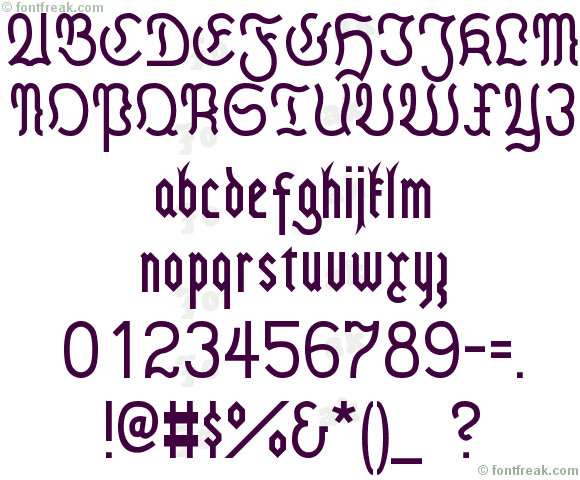
Fraktur Modern
Fraktur Modern by Matthew Welch is a captivating display font that falls under the fraktur category, showcasing a unique blend of traditional Gothic elements and contemporary design. This serif typeface features strikingly intricate letterforms characterized by sharp angles, high contrast, and varying stroke weights, making it visually compelling. The decorative elements, including ornate serifs and distinctive curves, add a sense of elegance and sophistication. The spacing between letters is thoughtfully designed, ensuring readability while maintaining its artistic flair.
This font is an excellent choice for various use cases, particularly in creative fields. It shines in wedding invitations, where its decorative style can enhance the romantic and festive atmosphere. Movie posters can benefit from the boldness of Fraktur Modern, helping to convey a dramatic tone that captures the audience's attention. Additionally, it can be effectively utilized in restaurant menus, adding a touch of flair that reflects the establishment's unique identity. Graphic designers and content creators will find it ideal for branding projects, ensuring that their designs stand out in a crowded marketplace.
Targeted toward graphic designers, small business owners, and content creators, Fraktur Modern caters to those seeking to add a distinctive flair to their projects. Its freeware license allows for easy access and experimentation, making it a valuable asset for anyone looking to elevate their design work.
What sets the Fraktur Modern font apart is its ability to marry traditional Gothic aesthetics with modern sensibilities. This combination not only makes it visually striking but also versatile enough to suit various design needs. For those interested in this unique typeface, you can find the Fraktur Modern font free download readily available, allowing you to explore its potential in your creative endeavors.